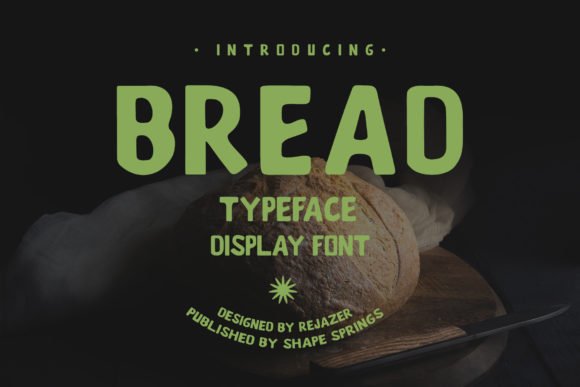
Bread Font: The Perfect Loaf for Your Designs
Who among us hasn’t stared at a blank page, trying to conjure up the perfect font to match our creative vision? For me, it was a design project for a bakery – the client wanted a warm, inviting logo that would make customers crave their freshly baked goods. I spent hours browsing through fonts, searching for that perfect combination of elegance and simplicity. And then, I stumbled upon Bread Font – a game-changer that added the perfect crust to my design.
Bread Font is a versatile typeface designed to bring a touch of warmth and coziness to any design project. Its clean lines and gentle curves make it perfect for food-related businesses, but its elegance also makes it suitable for a wide range of industries, from fashion to healthcare. For designers, Bread Font is a valuable asset that can elevate their work and help them stand out in a crowded market.
Bread Font Key Features
- Font Family: Bread Font is a sans-serif font family designed for digital and print use.
- Size: Bread Font is available in 6 weights, ranging from Light to Black, with corresponding italic styles.
- Unique Characteristics: Bread Font features a clean and modern design, with subtle rounded edges and a friendly feel, making it suitable for a wide range of applications, including corporate identities, advertising, and editorial content.
Bread Font Review
I recently had the chance to work with the Bread Font, and I must say it’s a mixed bag. Here’s my honest review.
- ✨ Unique and playful design: The Bread Font has a fun, whimsical feel that’s perfect for food-related projects or brand identities.
- ✨ Highly legible: Despite its creative style, the font is surprisingly easy to read, even at smaller sizes.
- ✨ Good for titles and headings: The Bread Font’s bold, eye-catching style makes it ideal for titles, headings, and other prominent text elements.
- ⚠️ Limited versatility: While the Bread Font is great for food-related projects, it may not be the best choice for more formal or corporate designs.
- ⚠️ Not suitable for large blocks of text: The font’s playful style can become overwhelming when used extensively, making it less suitable for paragraphs and body text.
Overall, I think the Bread Font is a solid choice for designers looking for a unique and playful font. While it has its limitations, it’s perfect for specific projects and can add a lot of personality to a design. Just be sure to use it judiciously and pair it with other fonts to create a balanced look.
Getting the Most Out of Bread Font
Some tips to get the most out of the Bread Font include:
– Experimenting with different font sizes and colors to create visual interest.
– Using the Bread Font in combination with other fonts to create a unique look.
– Applying the Bread Font to different design elements, such as headings and body text.
The Bread Font is suitable for a variety of design projects, including:
– Branding and logo design.
– Print materials, such as business cards and brochures.
– Digital design, including websites and social media graphics.
– Packaging design, including labels and wrappers.